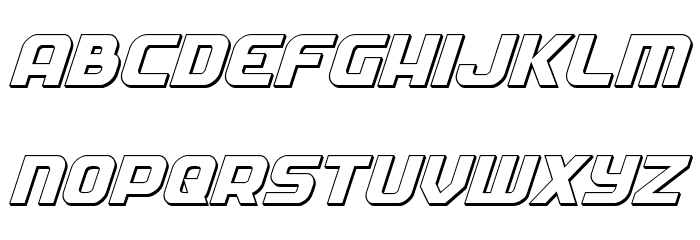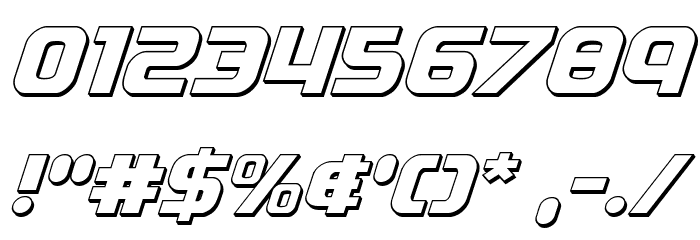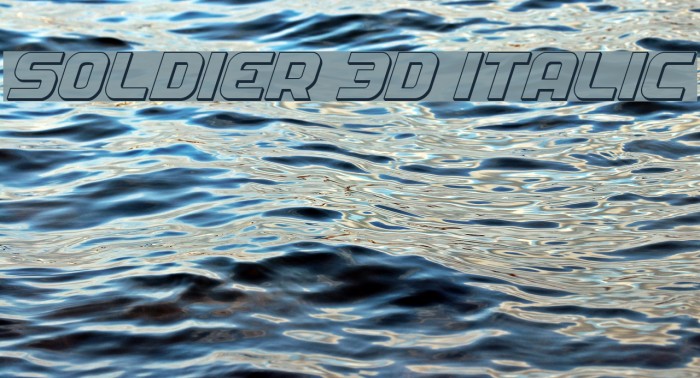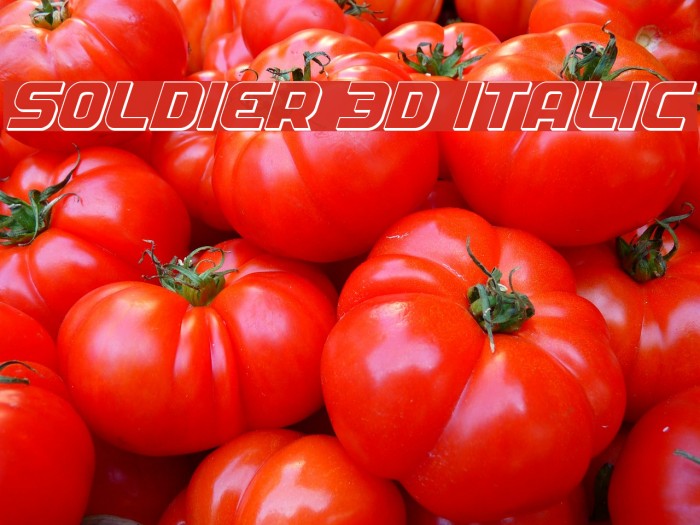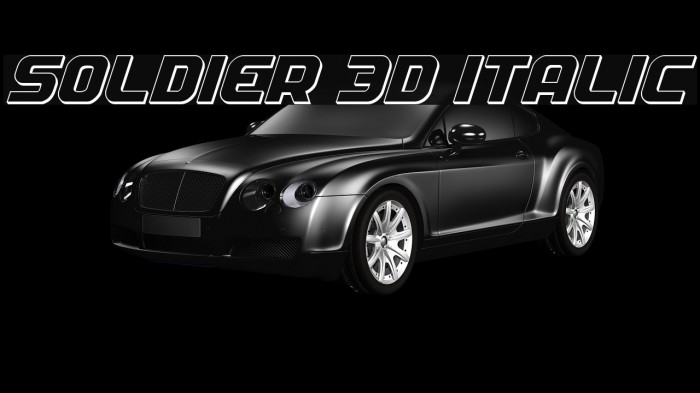
Soldier 3D Italic Font
This font features a bold, three-dimensional style with a distinct italic slant, giving it a dynamic and futuristic appearance. The characters are outlined, providing a sense of depth and movement. The uppercase letters are strong and angular, while the lowercase letters maintain the same boldness with slightly softer curves. The numerals are consistent with the overall style, ensuring uniformity across all characters. Special characters are also included, matching the bold and outlined design. This font is ideal for projects that require a modern and impactful look.
A bold, 3D italic font with outlined characters and a futuristic style.
- Proposed Projects: Ideal for video game titles, tech branding, futuristic posters, and dynamic presentations.